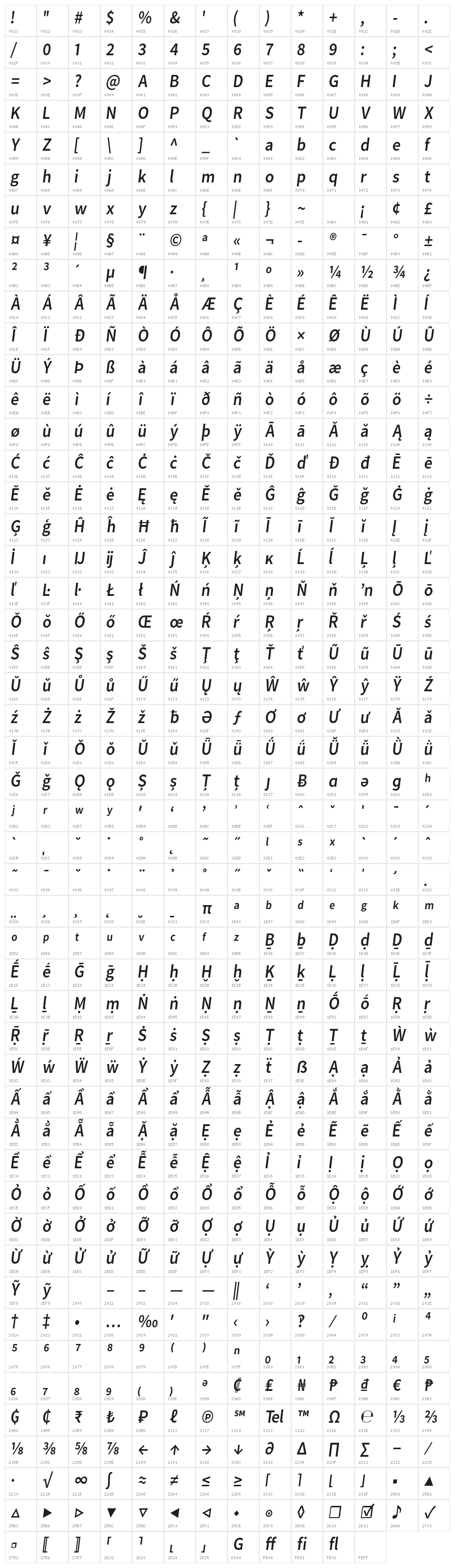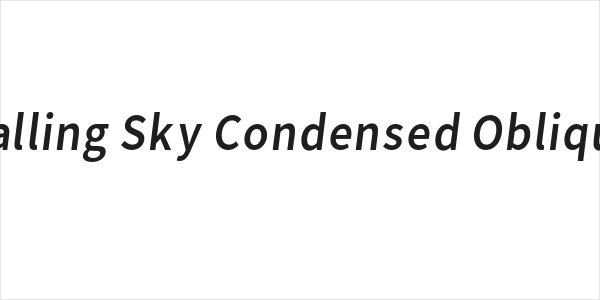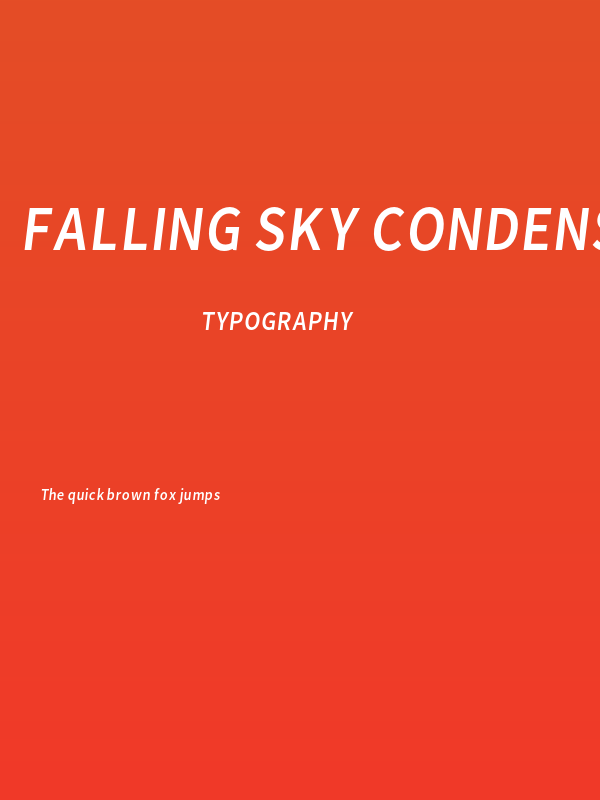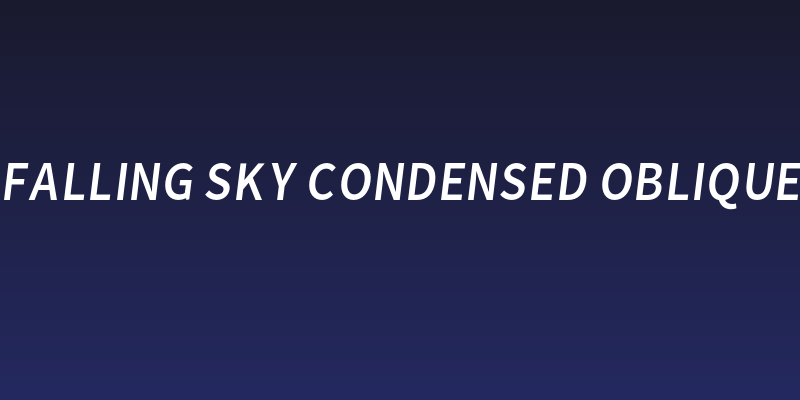
Falling Sky Condensed Oblique Font
Falling Sky Condensed Oblique Description
This font features a sleek and modern design with a condensed structure, giving it a compact appearance. The oblique style adds a dynamic and forward-leaning character to the text, making it suitable for contemporary and energetic designs. The characters are well-defined with a clean and sharp finish, ensuring readability even at smaller sizes. The uniform stroke width contributes to a consistent and harmonious look across all characters. Its simplicity and elegance make it versatile for various applications, from digital interfaces to print media.